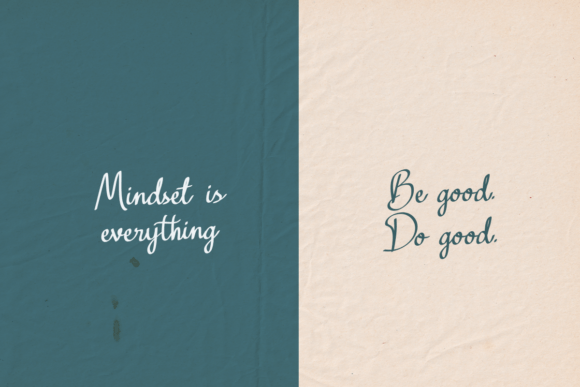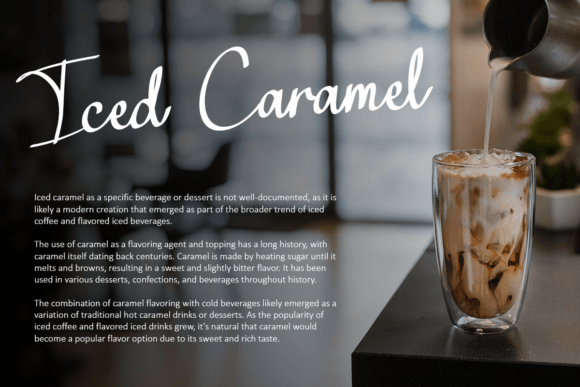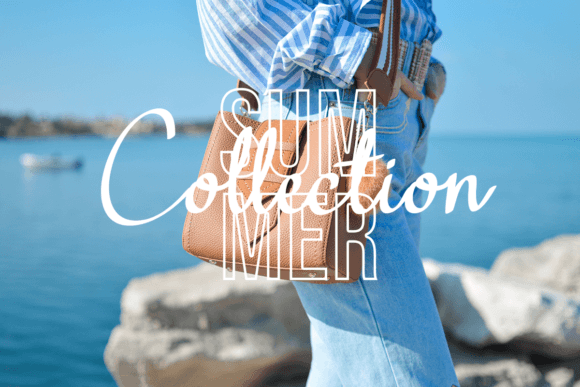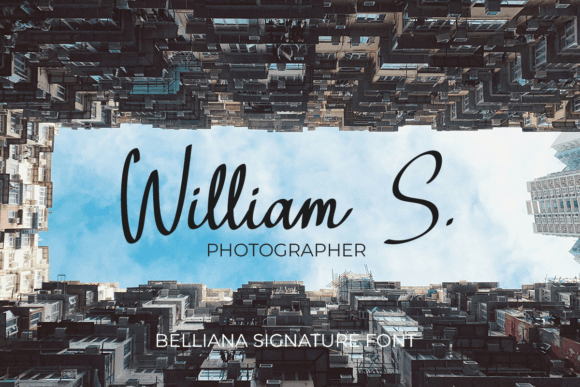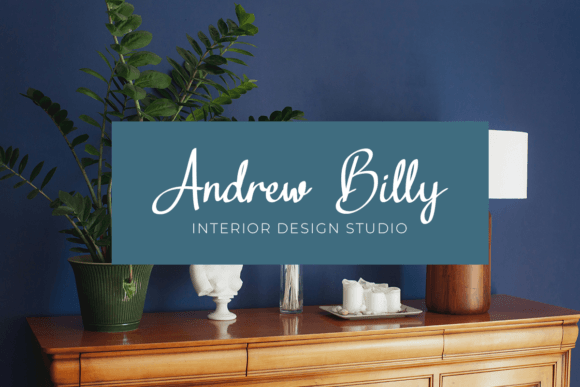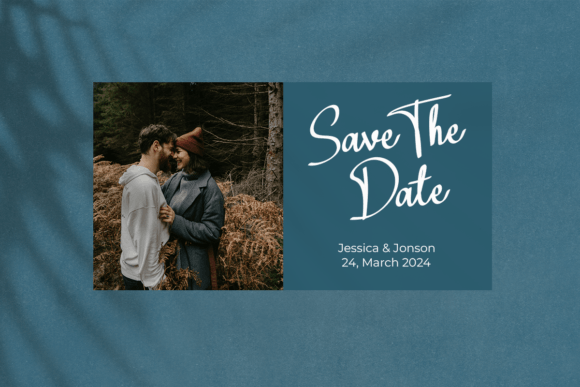
Unleashing the Art of Handwritten Charm
Have you ever stared at a blank sheet of paper, waiting for the perfect spark to ignite your creativity? For many designers, the struggle to find the right font can be a major hurdle. But what if I told you there’s a font that can transport you to a world of whimsy and personality, where every letter feels like a brushstroke of individuality?
Enter Belliana Font, a beautiful handwritten script font that captures the essence of real handwriting. With its amiable and organic feel, Belliana Font is the perfect companion for designers who want to add a touch of personality to their work. Whether you’re crafting a wedding invitation or a children’s book, Belliana Font is the perfect choice to convey individuality and style. With its extensive range of ligatures, contextual alternates, and Open Type features, Belliana Font is a valuable asset for any designer looking to elevate their work.
Belliana Font Key Features
- Font Family: Belliana
- Unique Characteristics: Elegant, cursive script with a touch of sophistication and refinement
Belliana Font Review
Overall, I think Belliana Font is a beautiful and elegant choice for any project. ✨ Its cursive script style gives it a romantic and whimsical feel that’s perfect for wedding invitations, greeting cards, or any other design that needs a touch of femininity.
- ✨ High-quality font file: The font files are well-made and look great on various devices and screen sizes.
- ✨ Wide language support: Belliana Font supports a wide range of languages, making it a great choice for international projects.
- ✨ Easy to read: The font is easy to read, even at smaller font sizes, which makes it perfect for body text.
However, there are a few limitations:
- ⚠️ Limited font weights: The font only comes in a few weights, which can make it difficult to create a consistent look across different elements.
- ⚠️ Not ideal for bold headings: While the font is beautiful, it’s not the best choice for bold headings, as it can become difficult to read at larger font sizes.
Overall, I think Belliana Font is a great choice for projects that need a touch of elegance and whimsy. While it may have some limitations, its high-quality font files and wide language support make it a solid choice for designers.
Getting the Most Out of Belliana Font
For optimal results, use Belliana Font in conjunction with a elegant and minimalist design aesthetic.
Pair Belliana Font with a simple color palette and clean lines to create a sophisticated and modern look.
Belliana Font is ideal for:
- Business cards and branding materials.
- Magazine and newspaper headlines.
Great Vibes is a beautiful, modern script font that works well for invitations, wedding designs, and other creative projects. It has a similar elegant and sophisticated feel to Belliana Font, but with a more playful and whimsical touch.
Comparison to Belliana Font: While Belliana Font is more refined and formal, Great Vibes has a more relaxed and casual feel. Great Vibes is ideal for projects that require a touch of personality and flair.
Lato is a clean and modern sans-serif font that is perfect for a wide range of designs, from corporate materials to fashion branding. It has a similar clean and minimalist feel to Belliana Font, but with a more geometric and modern aesthetic.
Comparison to Belliana Font: While Belliana Font is more ornate and elegant, Lato is more straightforward and functional. Lato is ideal for projects that require a clean and professional look.
Playfair Display is a luxurious and elegant font that is perfect for high-end designs, such as luxury branding, fashion designs, and fine art prints. It has a similar refined and sophisticated feel to Belliana Font, but with a more opulent and dramatic touch.
Comparison to Belliana Font: While Belliana Font is more understated and elegant, Playfair Display is more lavish and attention-grabbing. Playfair Display is ideal for projects that require a touch of luxury and sophistication.
Q: What is the recommended font size and line spacing for optimal readability with the Belliana Font?
For optimal readability, we recommend using a font size between 10 and 14 points for body text, and a line spacing of at least 120-150% of the font size. This will help ensure that the text is clear and easy to read, even in longer passages.